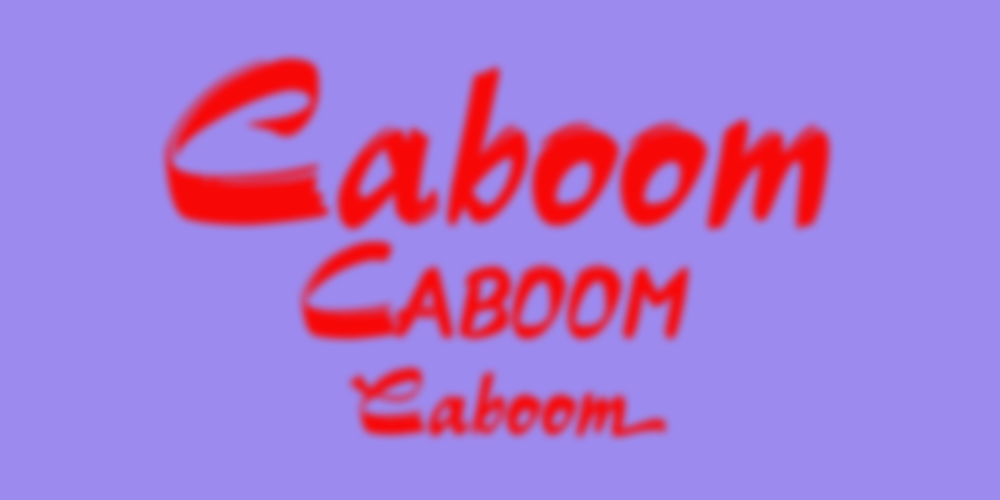
Caboom Font Family was designed by Gert Wiescher and published by Wiescher Design. Caboom contains 10 styles and family package options. Caboom is a very lively script. I got the idea when I was in Paris the last time and discovered that a small movie theater was showing »Zazie dans le Metro« by Louis Malle. Just had to do a crazy font after seeing that movie again. I gave it two different sets of upper and lower-case letters plus a kind of small caps set. To top things off, I added two uppercase versions with under swings and three different end letters for the lowercase glyphs. And of course two sets of numbers. Enjoy, you are getting the whole lot of five fonts for one low price. And if you happen on »Zazie« you must watch it! Hilarious!